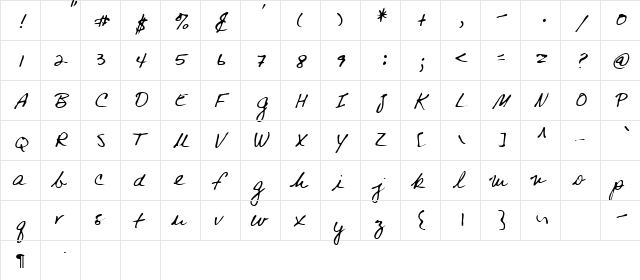
Kaempf Regular
Kaempf takes a measured approach to typography — its balanced proportions and neutral character make it a reliable workhorse for both digital and print work.